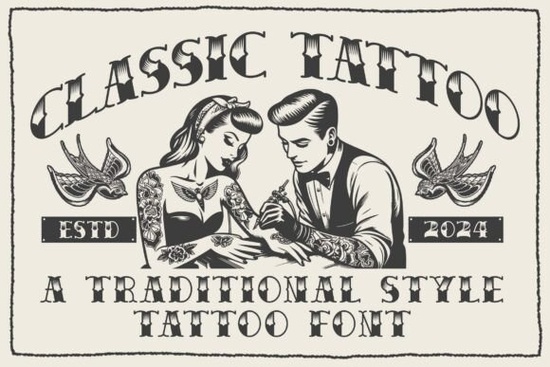
If you're working on a tattoo shop logo, vintage poster, or any branding that needs a bold retro feel, the Classic Tattoo Font is worth a close look. It's a traditional tattoo-style typeface with hand-drawn letterforms that carry real character. Every glyph has that classic flash-sheet look thick strokes, decorative serifs, and a slightly rough edge that feels authentic.
Whether you're a designer building brand identity, a print-on-demand seller creating merch, or a crafter working on personal projects, this font fills a very specific gap. Let's break down what makes it useful and how to get the most out of it.
What Is a Classic Tattoo Style Font Exactly?
Tattoo-style fonts take inspiration from traditional American tattoo flash art the bold, readable lettering you'd see on old-school Sailor Jerry sheets. These fonts usually feature:
- Heavy, high-contrast strokes that stay readable at different sizes
- Decorative serifs and swashes that add personality
- A hand-drawn quality that avoids looking too clean or digital
- Uppercase-focused designs with detailed letterforms
The Classic Tattoo Font nails all of these. Each letter was designed with tattoo art in mind, so it doesn't just look like a tattoo font it actually feels like one.
Where Does This Font Work Best?
This typeface isn't meant for body text or long paragraphs. It shines in display and headline use where you want to make a strong visual statement. Here are some practical uses:
- Logos and wordmarks for tattoo shops, barbershops, or vintage-themed brands
- Poster and flyer designs for events, bands, or promotions
- Product packaging for craft goods, beard oils, hot sauces, or anything with a rugged aesthetic
- T-shirt and merch designs for print-on-demand stores
- Social media graphics and watermarks
- Wedding invitations or menus with a vintage or rockabilly theme
How Does It Compare to Other Blackletter and Display Fonts?
Classic tattoo fonts sit in a broader family of display typography that includes blackletter, gothic, and old English styles. If you're exploring that space, you might also want to check out the Bathory Font, which leans more toward a dark, gothic blackletter aesthetic. It works well for heavy metal branding, horror-themed projects, and dramatic headers.
The difference matters. Classic tattoo lettering is bolder and more readable, while blackletter fonts tend to be more ornate and medieval in feel. Picking the right one depends on the mood you're going for.
Tips for Using Tattoo Fonts in Your Designs
Getting the most out of a font like this takes a bit of intention. Here are a few things I've learned from working with display typefaces:
- Keep your text short. These fonts work for headlines, titles, and short phrases not paragraphs.
- Give it space. Tattoo-style lettering looks best with generous letter-spacing and padding around the text.
- Pair it with a simple sans-serif. Use a clean font for any supporting text so the tattoo font gets full attention.
- Test at multiple sizes. Make sure the details stay visible on both a business card and a large poster.
- Check the license. Always confirm the font license covers your intended use, especially for commercial projects and POD platforms.
Is Classic Tattoo Font Right for Your Project?
If your design calls for bold, traditional lettering with personality, this font delivers. It's especially strong for anyone working in vintage branding, tattoo culture aesthetics, or retro-themed merchandise. It won't work for everything and that's fine. The best fonts are the ones built for a specific purpose, and this one knows exactly what it is.
Take a few minutes to preview it with your own text, test how it pairs with your other design elements, and see if the style matches your vision.
Start by previewing the Classic Tattoo Font with your project name or tagline you'll know pretty quickly if it's the right fit.